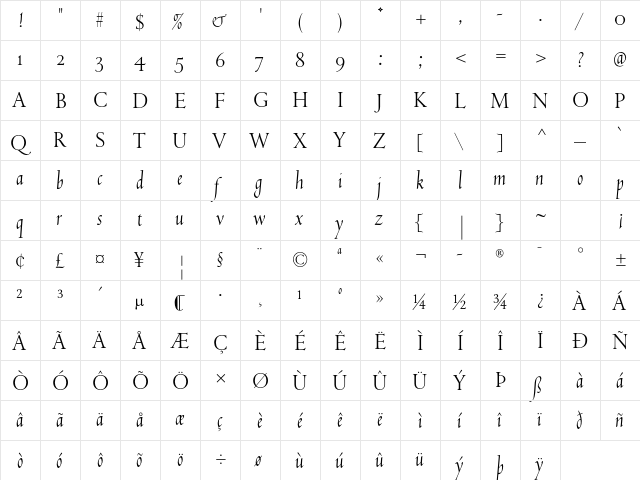
Fairbank MT Std Regular
| Designer | Robin Nichols |
Design Context for Fairbank MT Std Typeface
Fairbank MT Std offers clean, dependable letterforms without strong stylistic allegiance, making it a practical choice for designers who need flexibility.